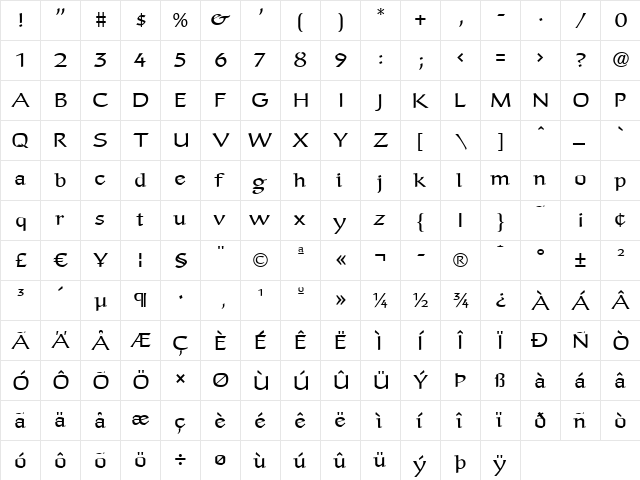
Anasdair LT Std Regular Regular
| Foundry | Linotype Library GmbH |
| Designer | Richard Yeend |
Design Context for Anasdair LT Std Regular Typeface
Anasdair LT Std Regular offers clean, dependable letterforms without strong stylistic allegiance, making it a practical choice for designers who need flexibility. The delicate stroke weight brings airiness and refinement to layouts.